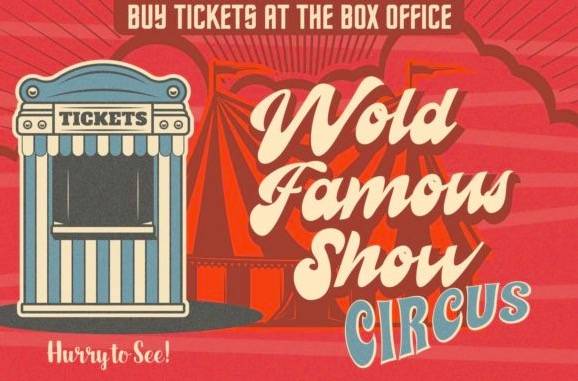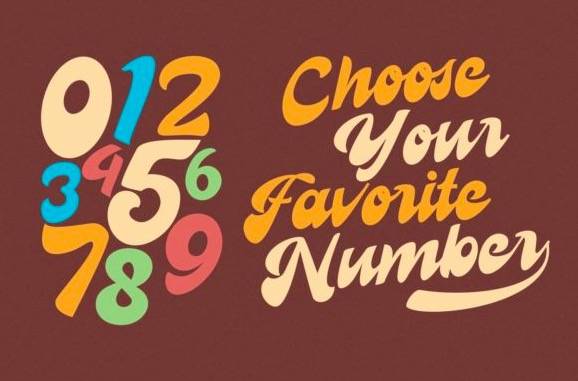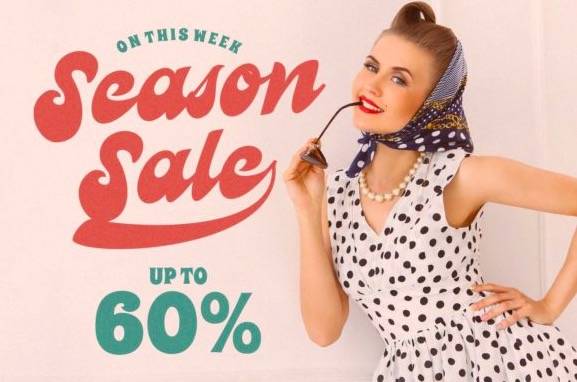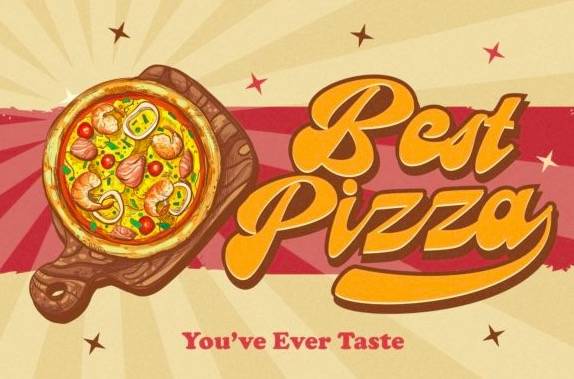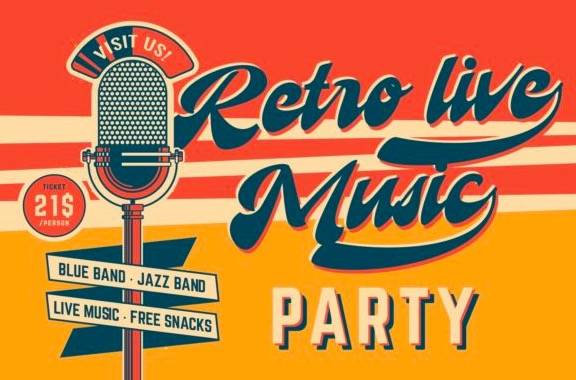
Recollet font is an excellent bold script typeface. This font was created and published by StringLabs. It has a Vintage style and unique design with a combination of the classic retro style from the 80s with sporty.
This Retro font is perfect for any project, such as the logo and slogan of barbershop, clothing, shoe brands, motorcycle club, hipster, coffee shop, vapor shop, etc.
Recollet Retro Font
Recollet Retro Script Font